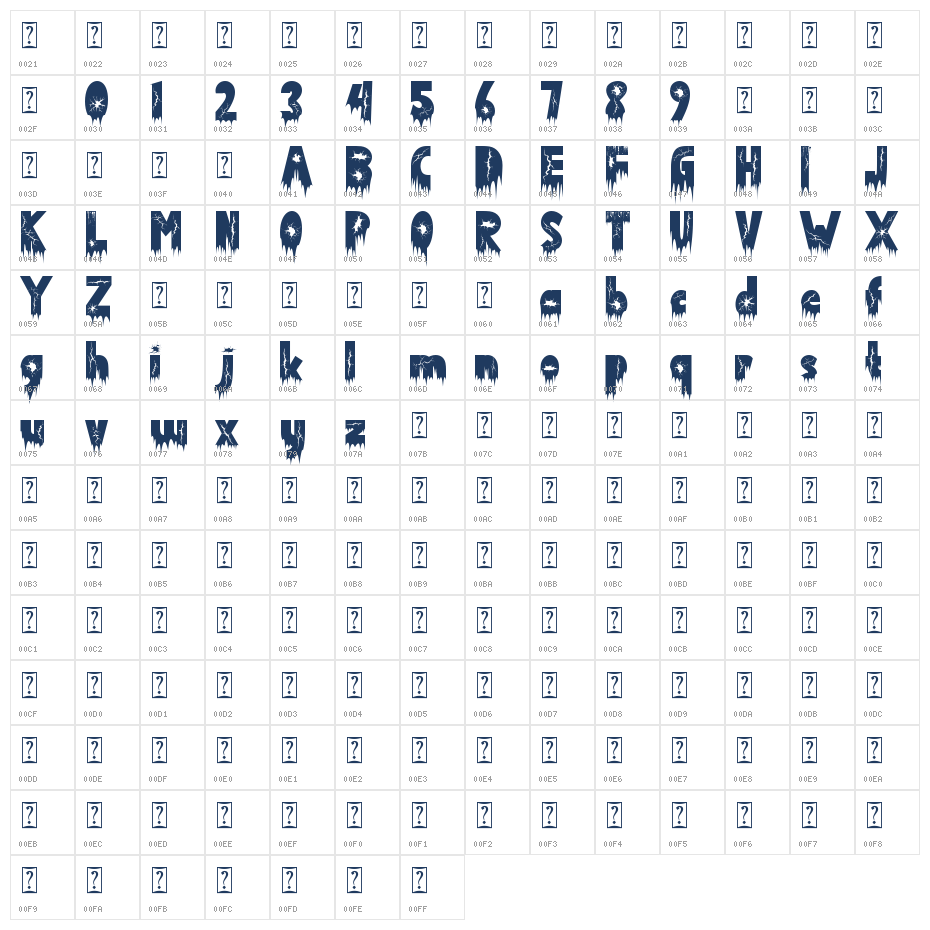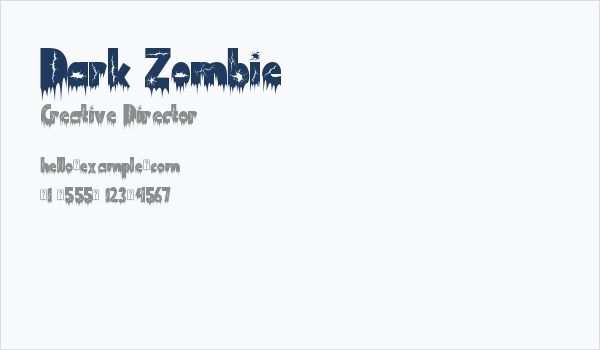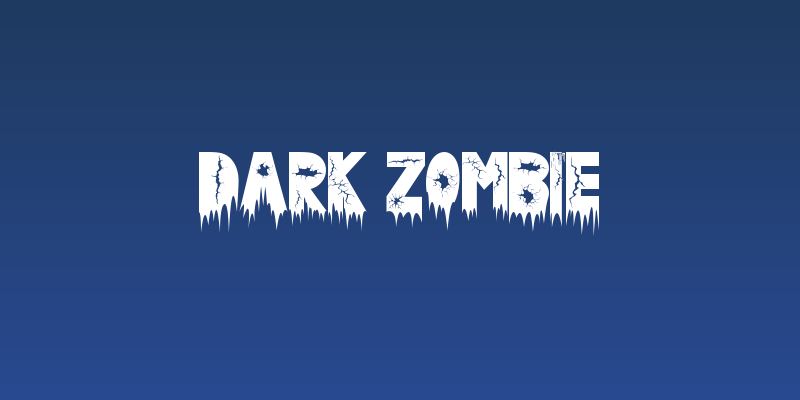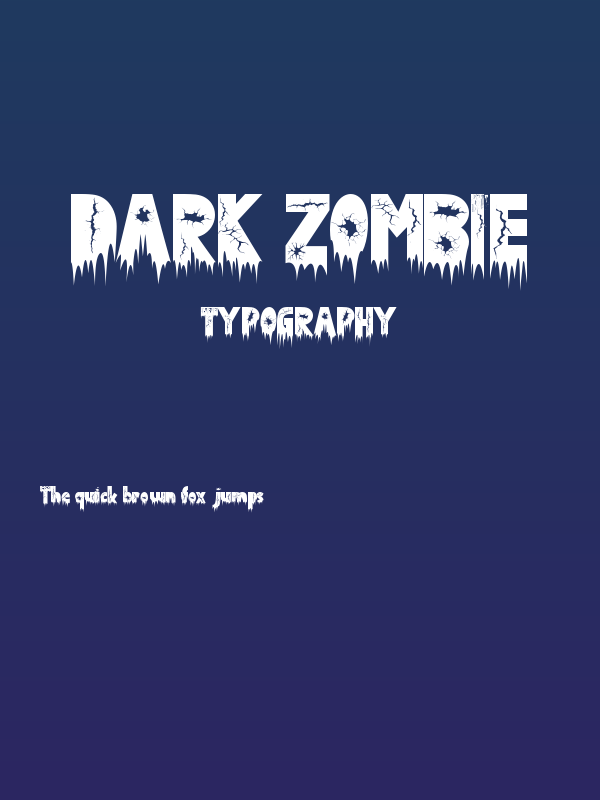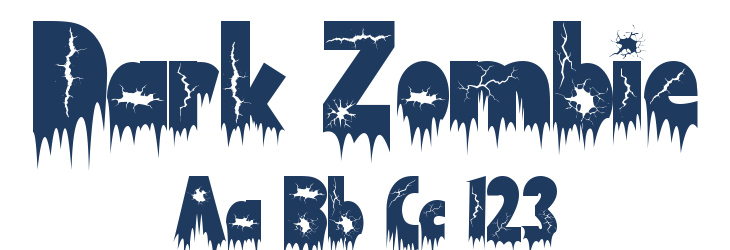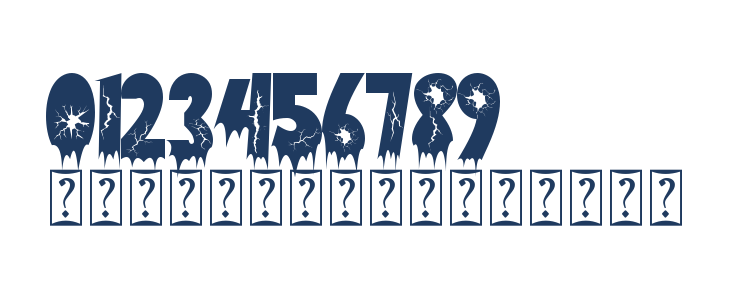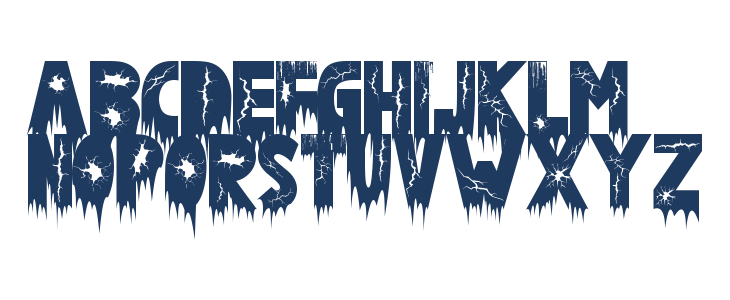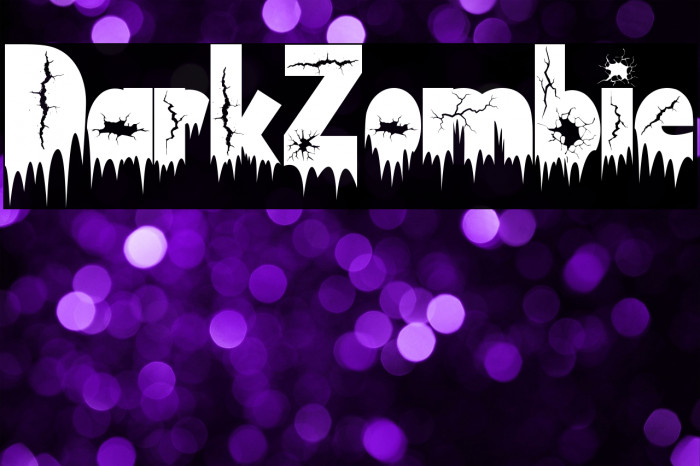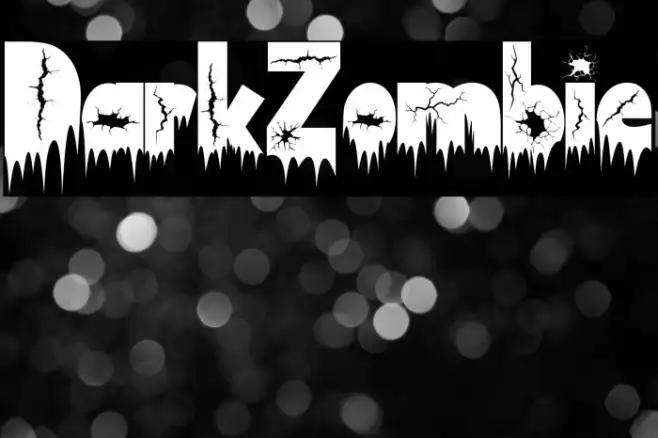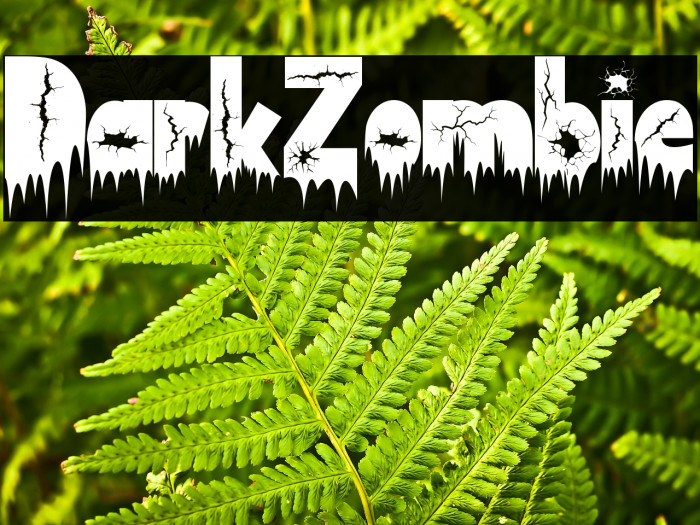
Dark Zombie Font
Dark Zombie Description
A bold, decorative display font with a jagged, cracked, and lightning-inspired design, giving a spooky or horror-themed aesthetic.
Dark Zombie
| Overall Style | Gothic, Horror, Spooky |
| Use Case | Headlines, Posters, Logos, Titles |